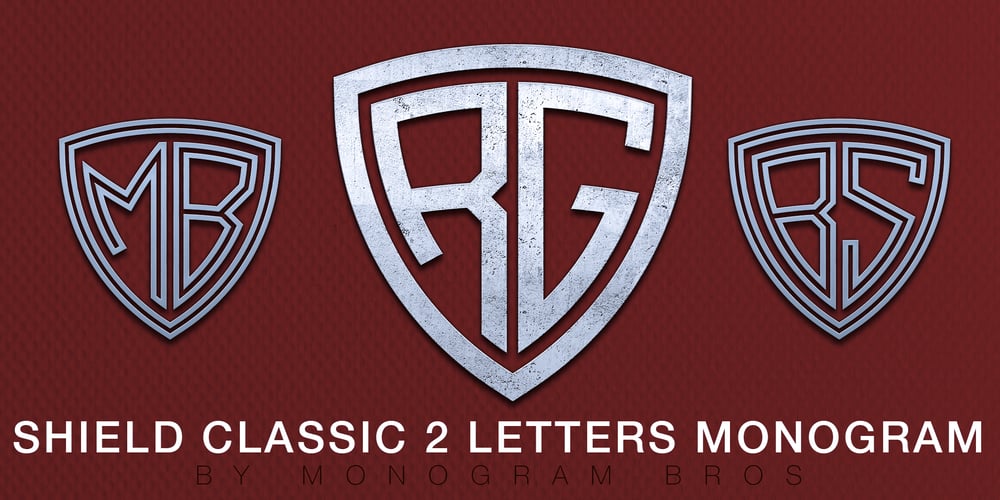
Shield Classic 2 Letters
Shield Classic 2 Letters font
Shield Classic 2 Letters Font Family was designed by Andrei Isakau and published by MonogramBros. Shield Classic 2 Letters contains 2 styles and family package options. Shield Classic 2 Letters Monogram Font is a perfect shaped monogram font consisting of 52 letters and 1 basic frame. With just a single font file you will be able to create beautiful monograms in just a matter of minutes after the purchase! Shield Classic 2 Letters Monogram Font comes with font file in OTF format.